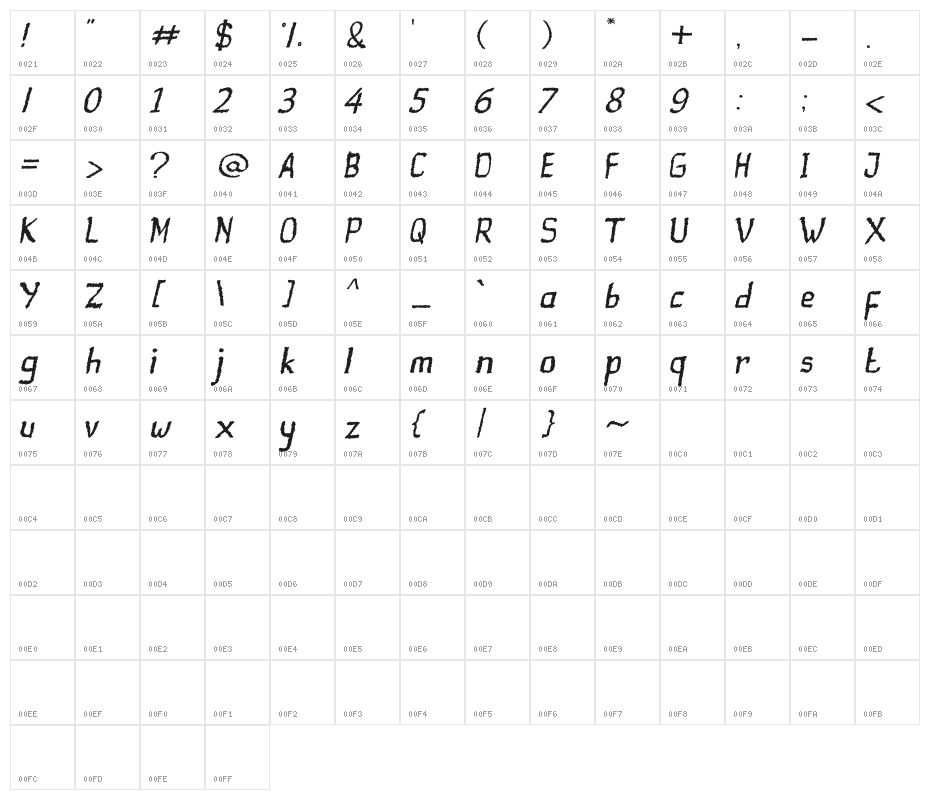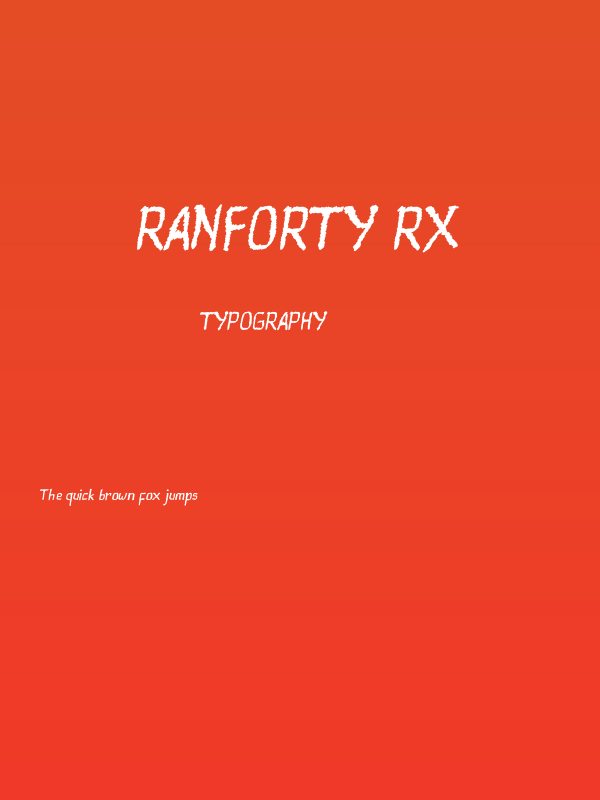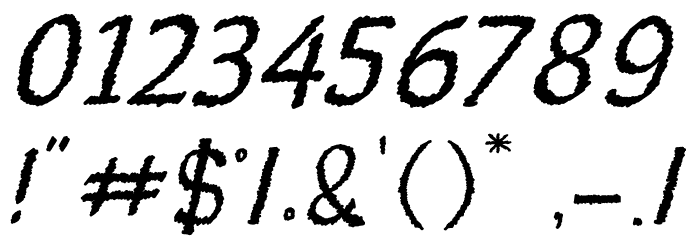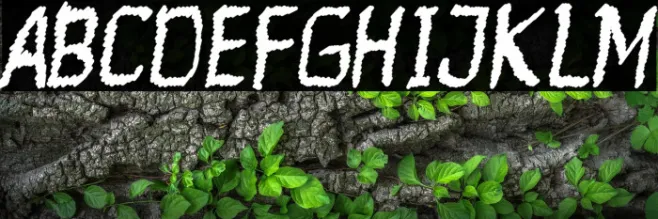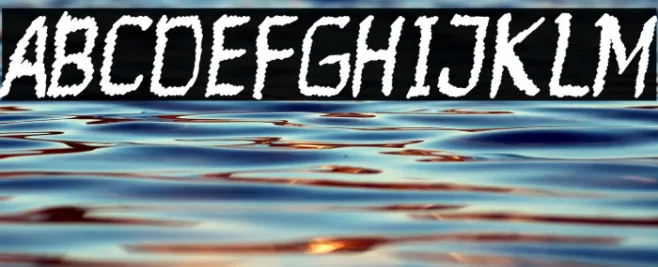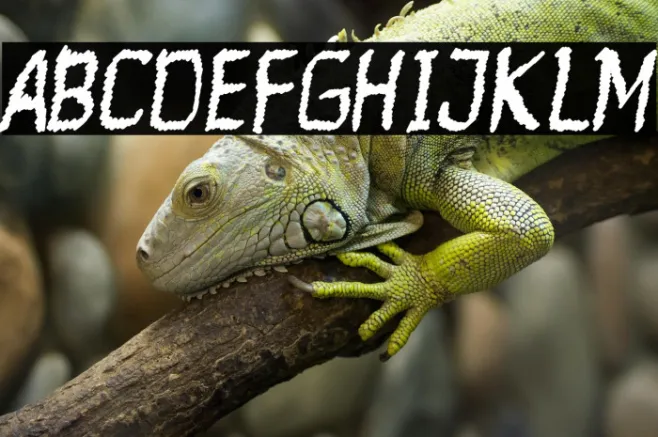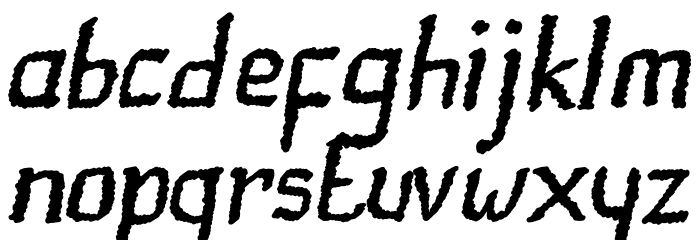
Ranforty Rx Font
Ranforty Rx Description
This font features a unique, textured appearance that mimics a hand-drawn style, giving it a dynamic and energetic feel. The letters are slightly slanted, adding a sense of motion and fluidity. The uppercase and lowercase characters maintain a consistent style, with rounded edges and a playful, informal look. The numerals and special characters follow the same design principles, ensuring a cohesive appearance across all glyphs. This font's distinctive texture and lively character make it stand out, offering a creative and artistic vibe.
| Use Case | Logos, Posters, Invitations |
| Proposed Projects | Ideal for creative projects such as posters, invitations, and branding materials that require a lively and artistic touch. |